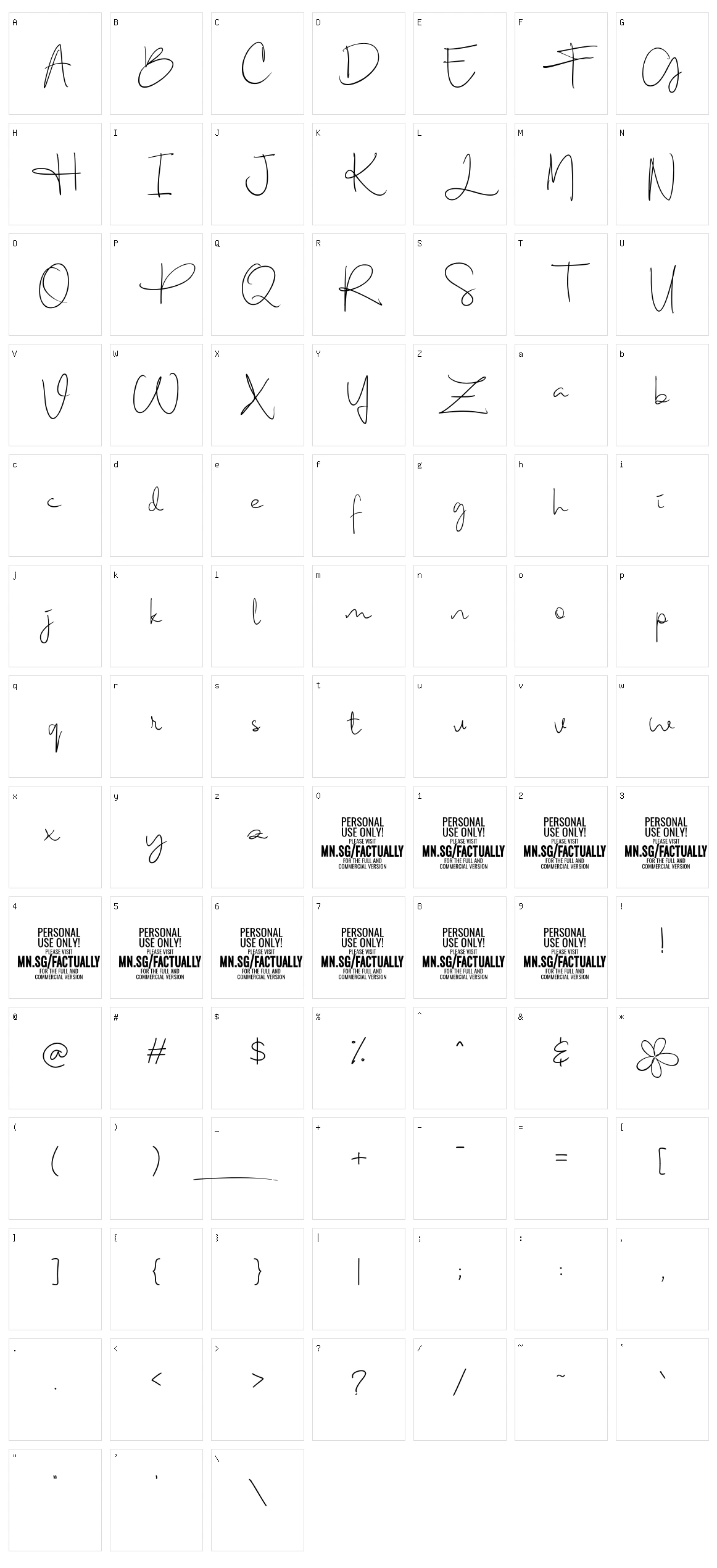
Factually Handwriting is a stunning signature-style font that conveys a sense of expressive hand-lettering with a genuine touch. Its effortless strokes and wild curves make it perfect for adding a personal touch to your projects.
Designed with a focus on authenticity, Factually Handwriting captures the beauty of natural handwriting, and consists of eight styles, including Regular, Italic, Bold, Alternate, Alternate Italic.
Each style of Factually Handwriting offers a unique aesthetic, giving you the freedom to experiment with different looks and create truly personalized designs.
This font is perfect for everything from logos and branding to social media posts and invitations. With its natural charm and expressive strokes, Factually Handwriting adds a touch of warmth and personality to any project.
Use undercore _ anywhere in a to make a swash.
Example: Hand_Signature
Use multiple underscores to make different swashes.
Example: Candy___Bars
Use * to make flowers!
Beautiful*Spring
Blue***Roses
The font is built with advanced OpenType functionality and has a guaranteed top-notch quality, containing stylistic and contextual alternates, ligatures and more features; all to give you full control and customizability.